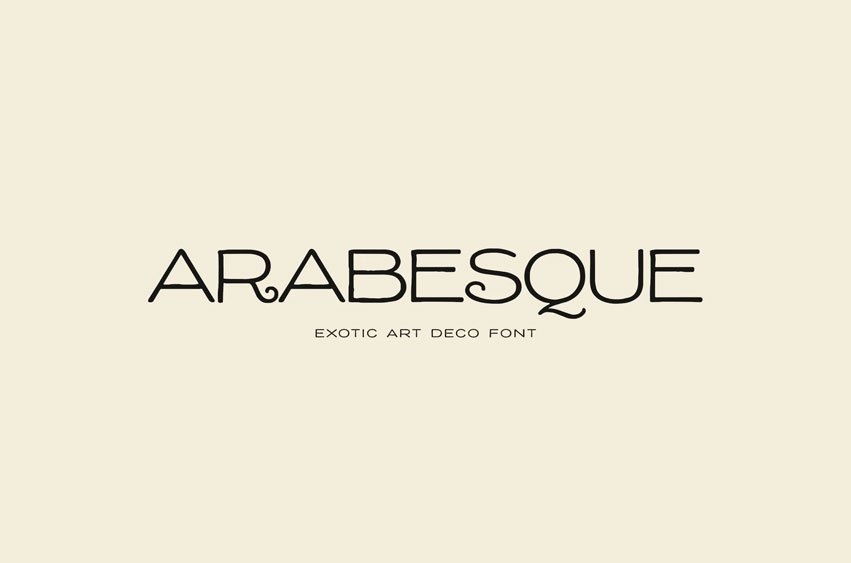
Arabesque Font is an exotic art deco font with elegant decorative details and a refined vintage feel. Inspired by ornamental curves and graceful geometry, this typeface is perfect for adding a sophisticated, artistic touch to your designs.
Ideal for branding, logos, packaging, wedding invitations, editorial layouts, posters, beauty branding, fashion projects, and social media graphics, Arabesque helps create stylish and memorable typography.
This font works beautifully for both modern luxury designs and vintage-inspired compositions, making it a versatile choice for designers, creatives, and small business owners.